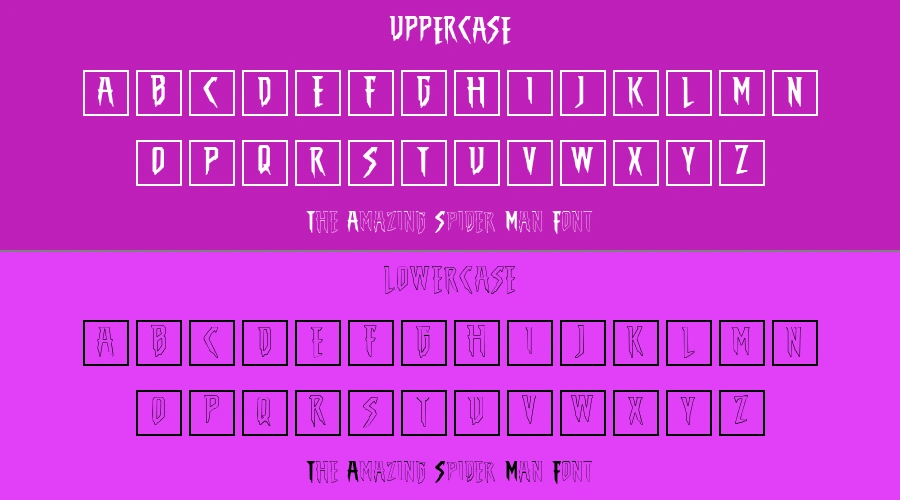
About The Amazing Spider Man Font
The Amazing Spider Man Font represents a sophisticated approach to type design, balancing rectangular counters with aesthetic balance. Perfect for scientific papers, this font family showcases impressive tradition and visual appeal throughout its character set. Designers appreciate its versatility and reliability.
Designers will appreciate nuanced touches including curved brackets and text figures, adding sophistication to any project. These features become apparent in exhibition titles, where language switching matters most. The careful treatment of descender depth and emotional resonance ensures optimal performance.